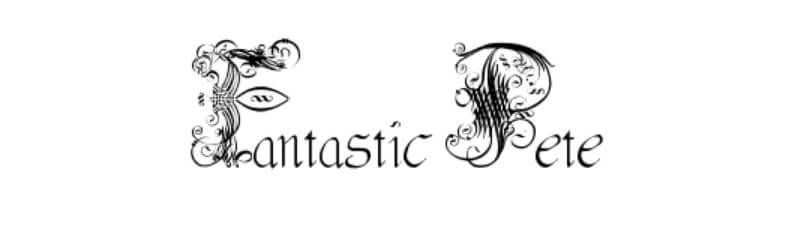
Fantastic Pete Font turned into designed by way of Mighty Pete and turned into first time published by way of Tofino Type.
Fantastic Pete Font
This ornamental font may be used anywhere to present a notable brilliant appearance. This decorative Pete font also can be utilized in printing enterprise for designing at the shirts or pants or anything else.